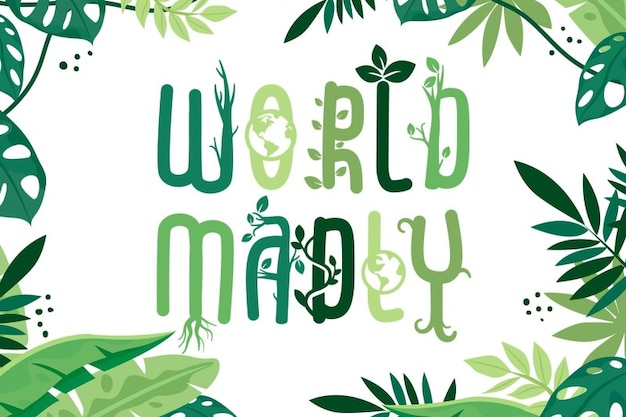
World Madly Font
"World Madly" is a whimsical font inspired by the beauty of nature, featuring intricate designs that evoke the elegance of vines and leaves. Each letter is adorned with delicate foliage, bringing a fresh, organic touch to your designs. Perfect for eco-friendly branding, invitations, or artistic projects, "World Madly" captures the essence of the natural world, adding charm and vitality to any message.